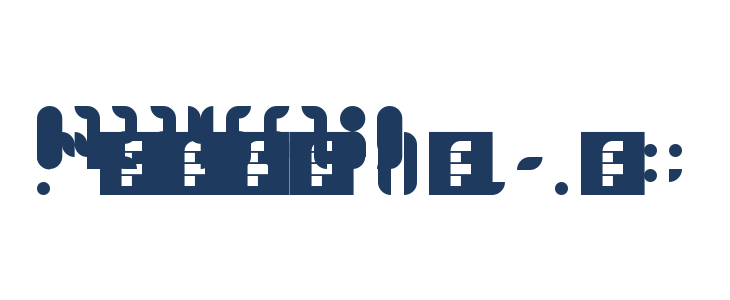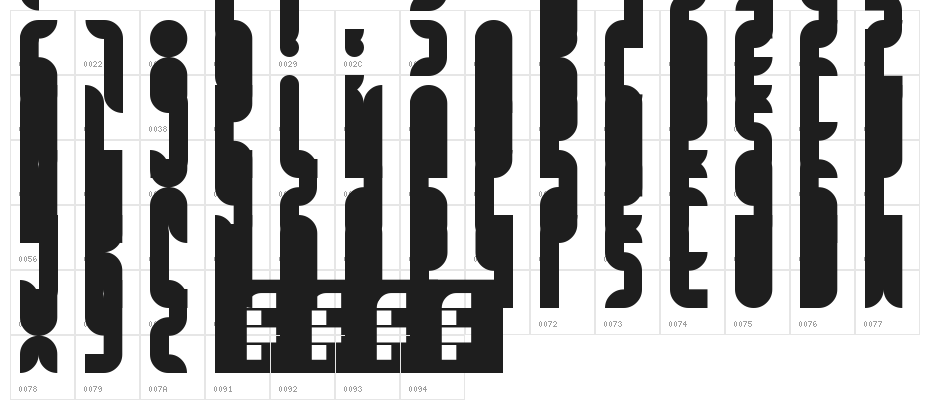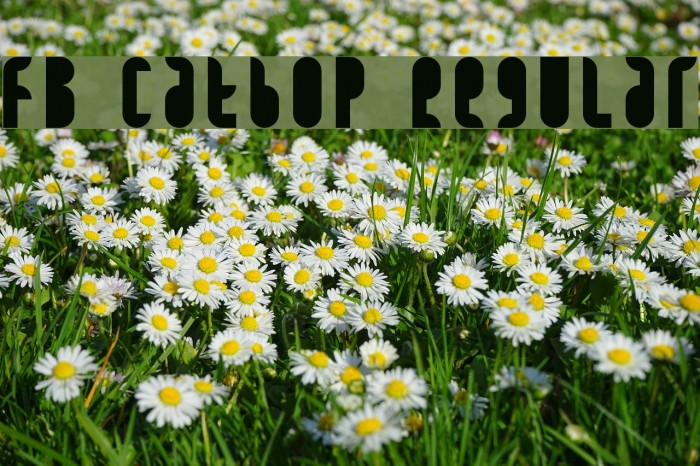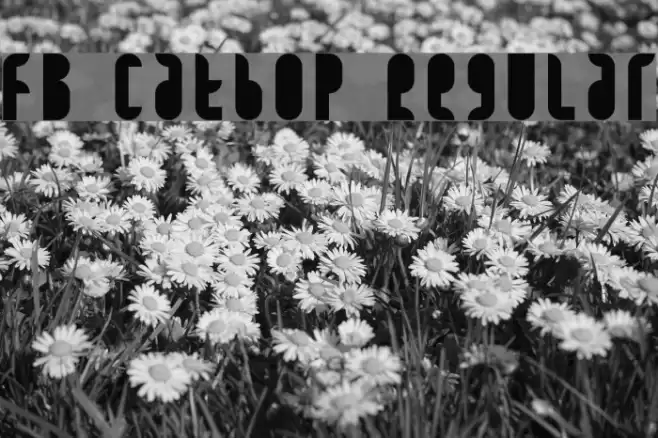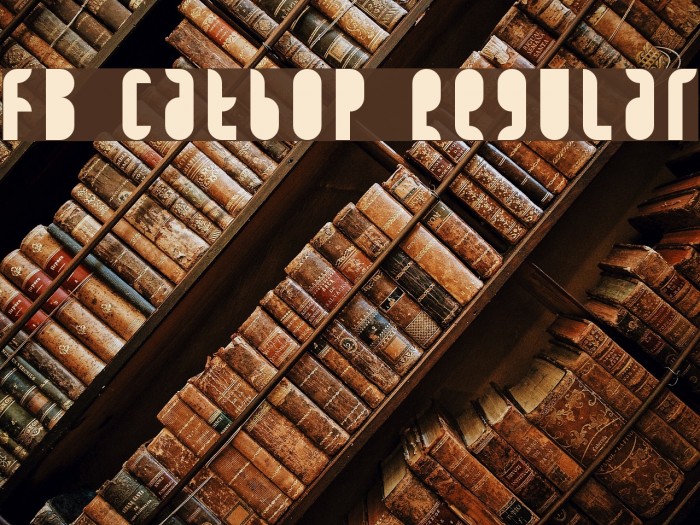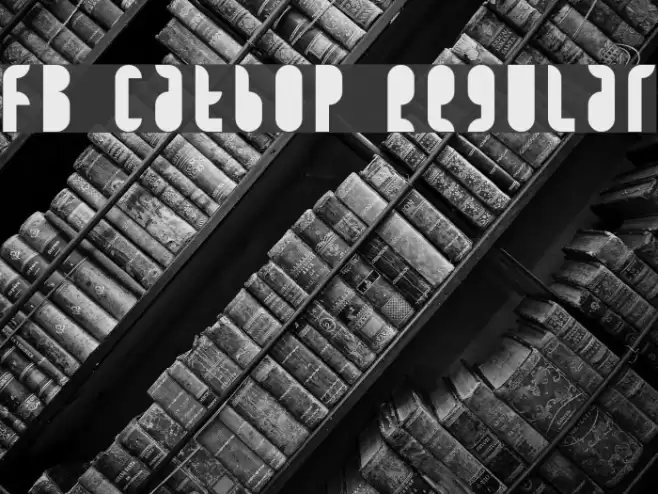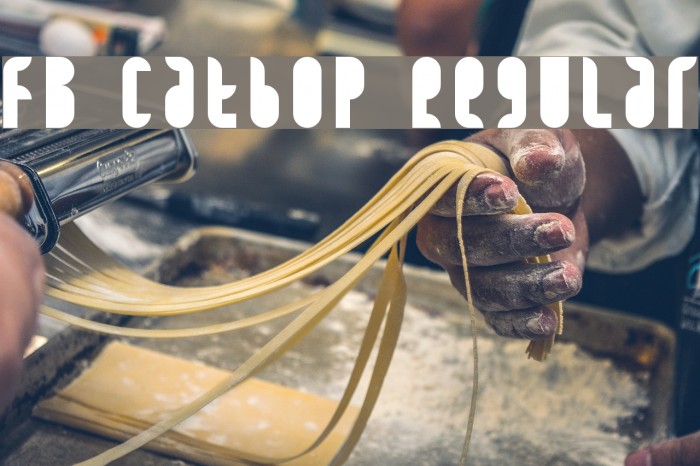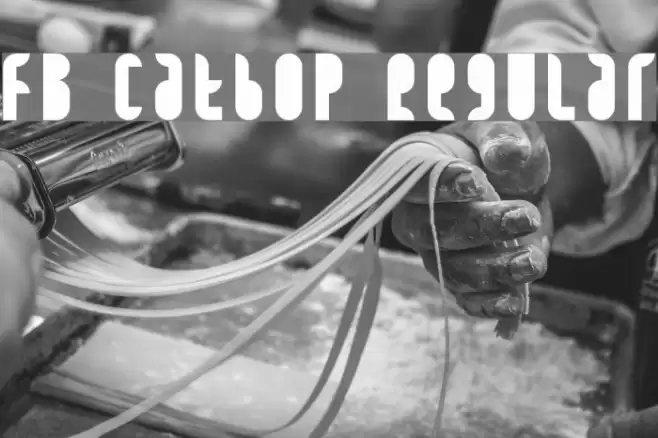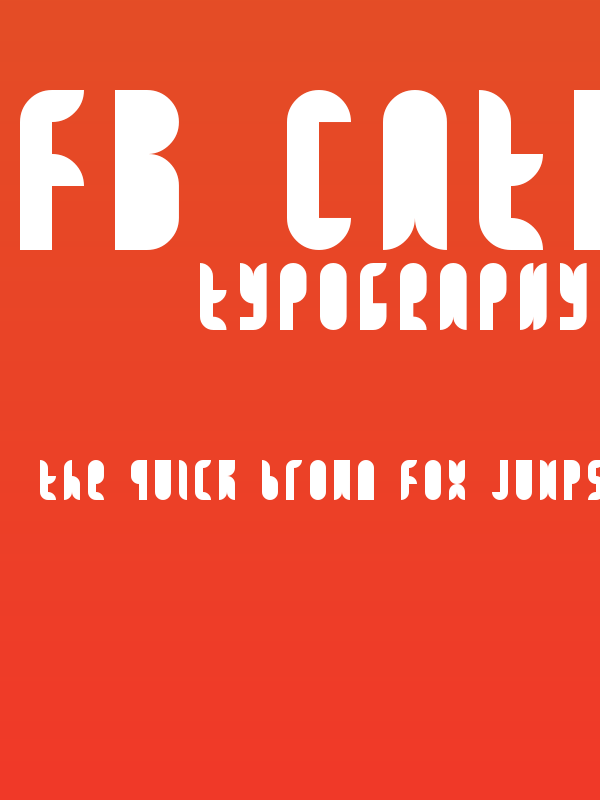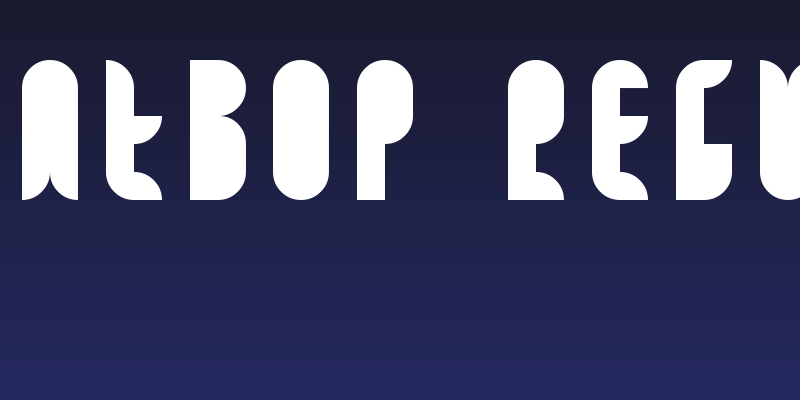
FB Catbop Regular Font
FB Catbop Regular Description
This font features a bold and geometric design with strong, block-like characters. Each letter is crafted with a unique, modern aesthetic that combines sharp angles and smooth curves, creating a striking visual impact. The uppercase and lowercase letters maintain a consistent style, while the numerals and special characters complement the overall design. The font's boldness and distinct shapes make it ideal for attention-grabbing headlines and creative projects. Its unique style is both contemporary and artistic, offering a fresh take on traditional typography.
| Proposed Projects | Ideal for branding, posters, album covers, and any project requiring a bold, modern aesthetic. |